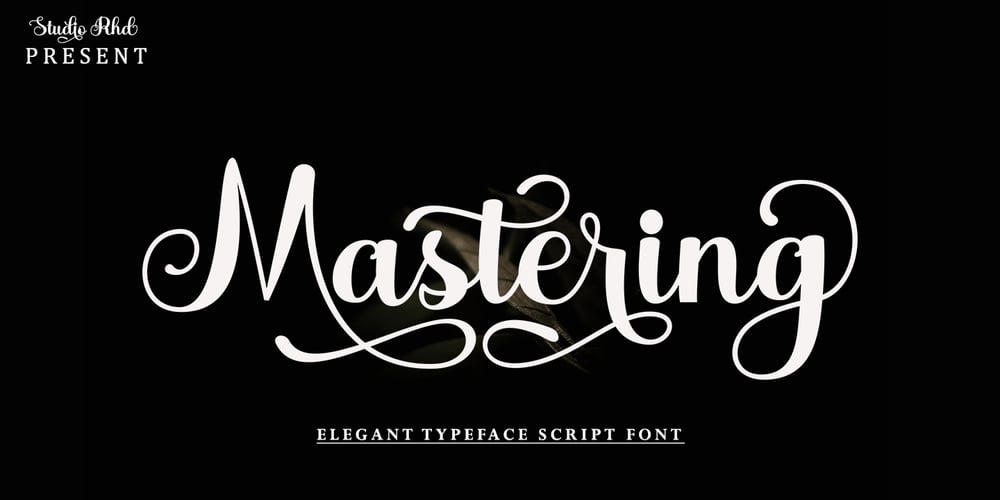
Mastering
Mastering font
Mastering Font Family was designed by Rahmad Rizky and published by Rhd Studio. Mastering contains 1 styles and family package options. Mastering Script is an aTypeface script font that comes with great alternative characters. mix of copper calligraphy in a handlettering style. Designed to convey an elegant style. Mastering Script is attractive because it is subtle, clean, feminine, sensual, glamorous, simple and very legible. Its classic style is very suitable to be applied to all types of formal items such as invitations, labels, menus, logos, fashion, make up, stationery, letterpresses, romantic novels, magazines, books, greeting / wedding cards, packaging, labels.Mastering Script features 247+ glyphs and 57 alternate characters. includes multiple language support. With OpenType features with stylistic alternates, ligatures and swash characters, which allow you to mix and match pairs of letters to suit your design, and also a touch of ornament makes this font look elegant.To activate the OpenType Stylistic alternative, you need a program that supports OpenType features such as Adobe Illustrator CS, Adobe Indesign & CorelDraw X6-X7, Microsoft Word 2010 or a later version. There is an additional way to access swashes, using the Character Map (Windows), Nexus Fonts (Windows), Font Books (Mac) or a software program such as PopChar (for Windows and Mac).